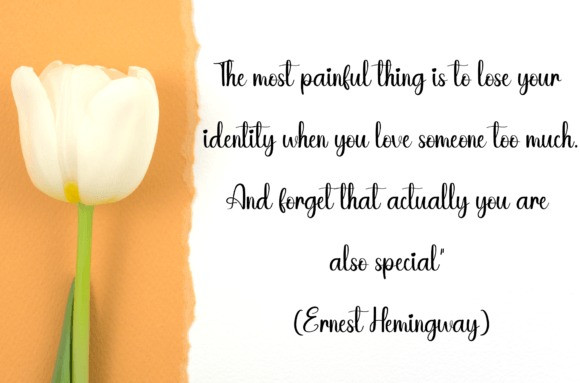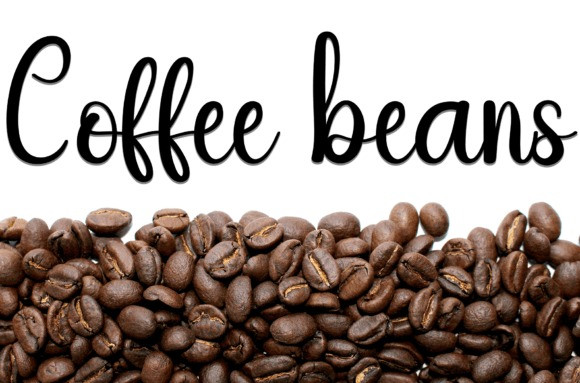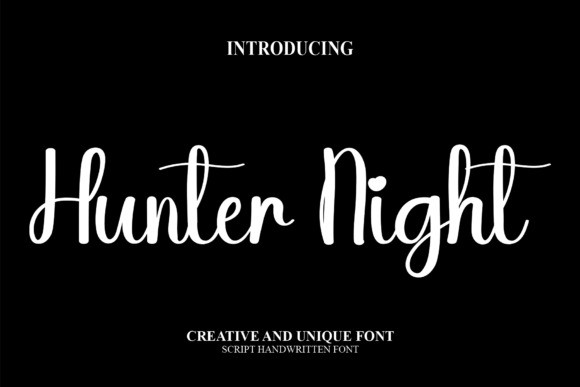
Hunter Night Font
Hunter Night Font, This latest style font is perfect for wall displays, wedding invitations, social media post logos, advertisements, product packaging, product design, labels, photography, watermarks, invitations, stationery and any project that requires a taste for handwriting.